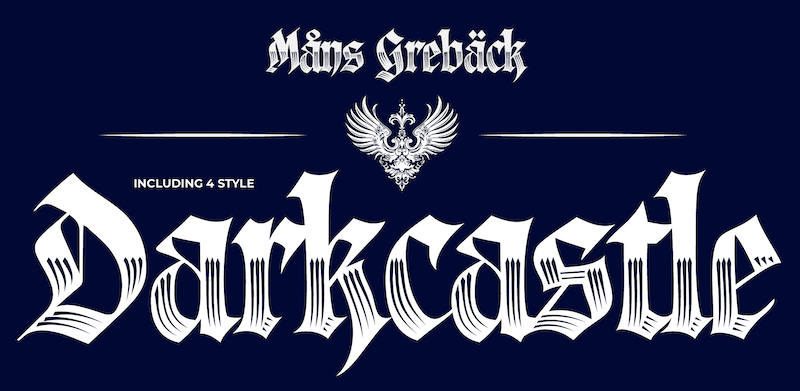
Preview and download Darkcastle Font. Created by Måns Grebäck in Gothic Modern styles with Free for personal use license.
NOTE: This font is for PERSONAL USE ONLY! To purchase a commercial license, visit: http://mn.sg/darkcastle Darkcastle is a strong blackletter font that evokes the medieval era. Its dramatic letterforms are adorned with sharp decorative lines, giving it a powerful illumination for dark Halloween nights or a historical logotype. For questions, please visit www.mn.sg/faq |